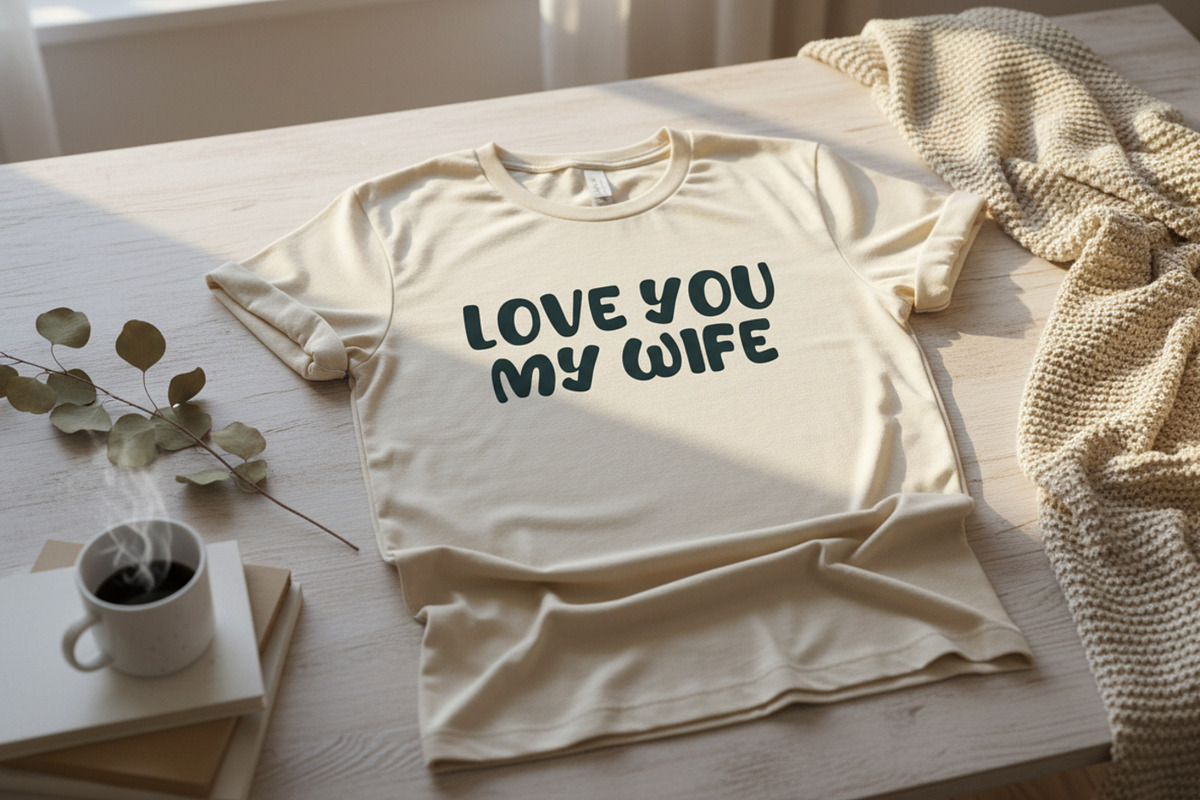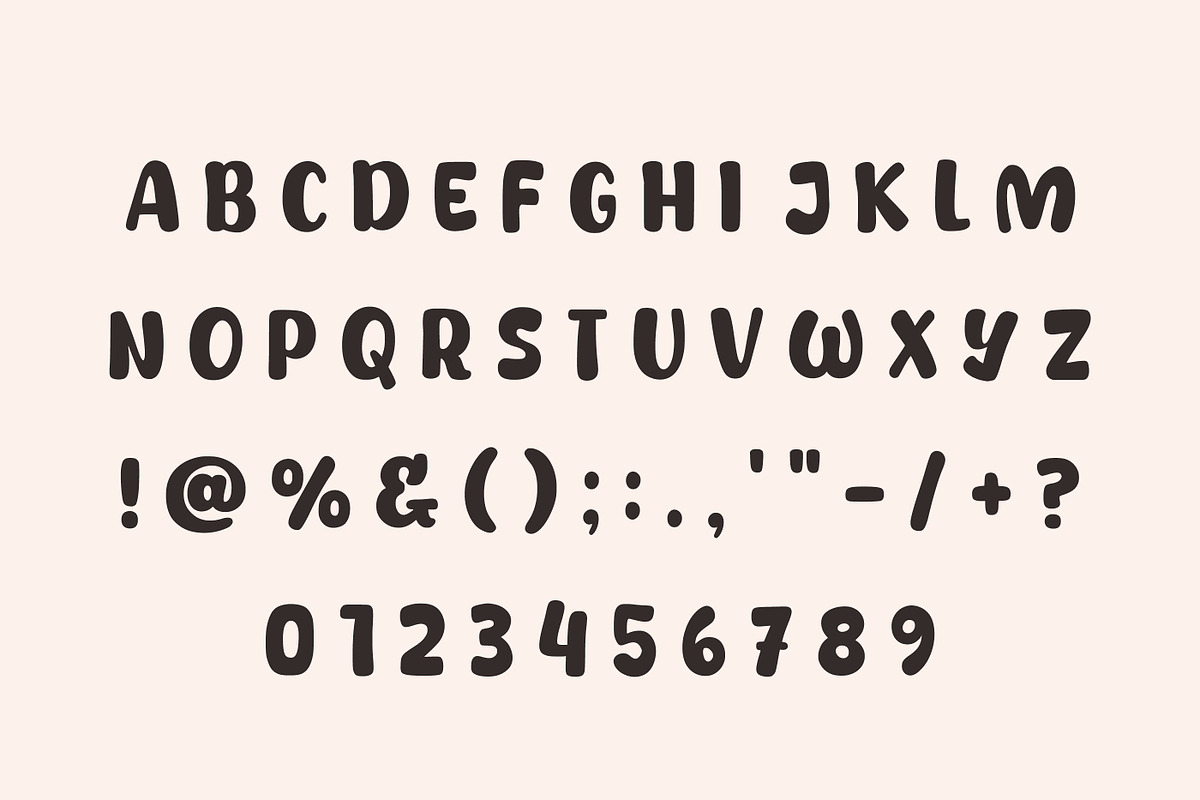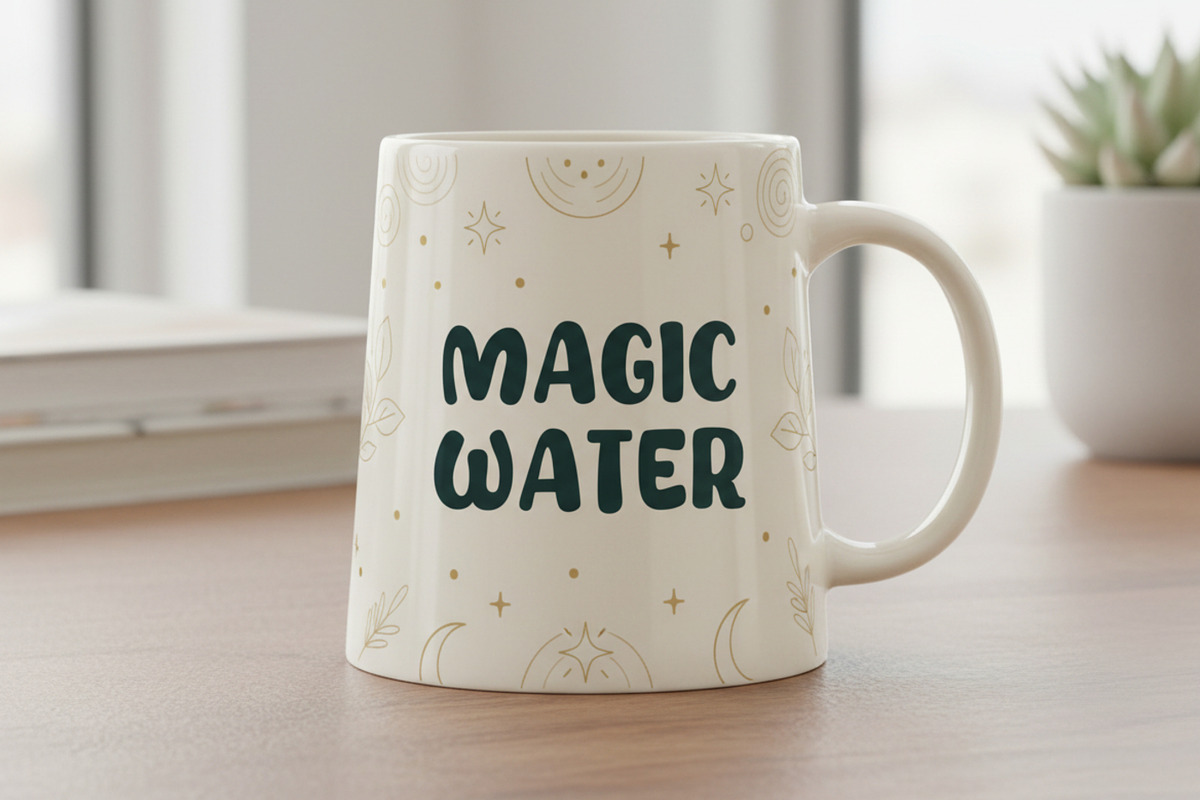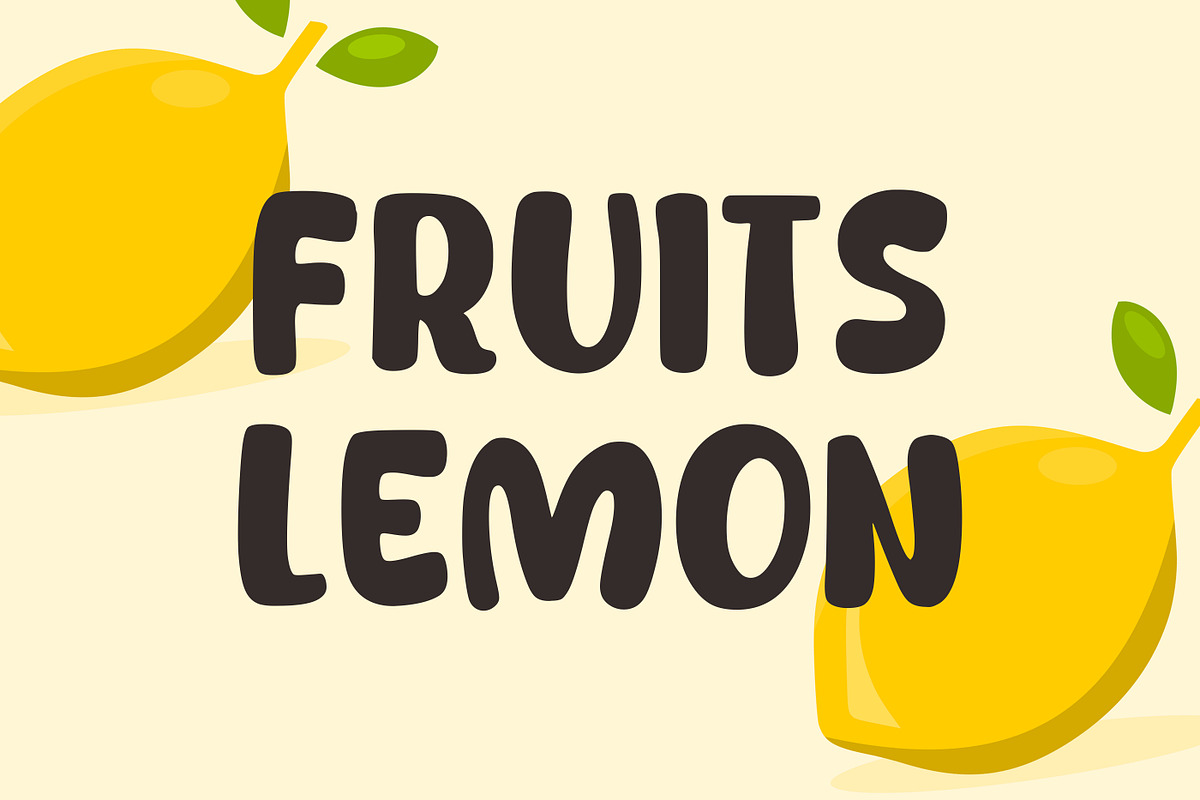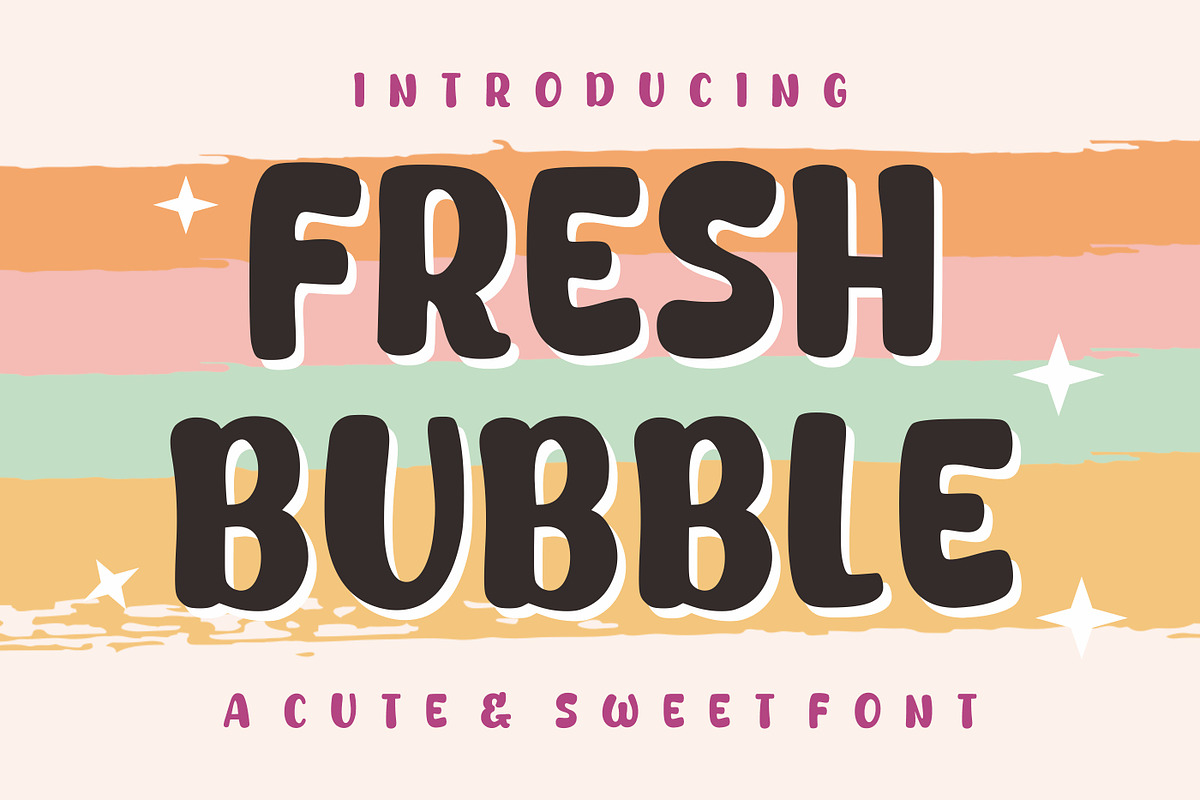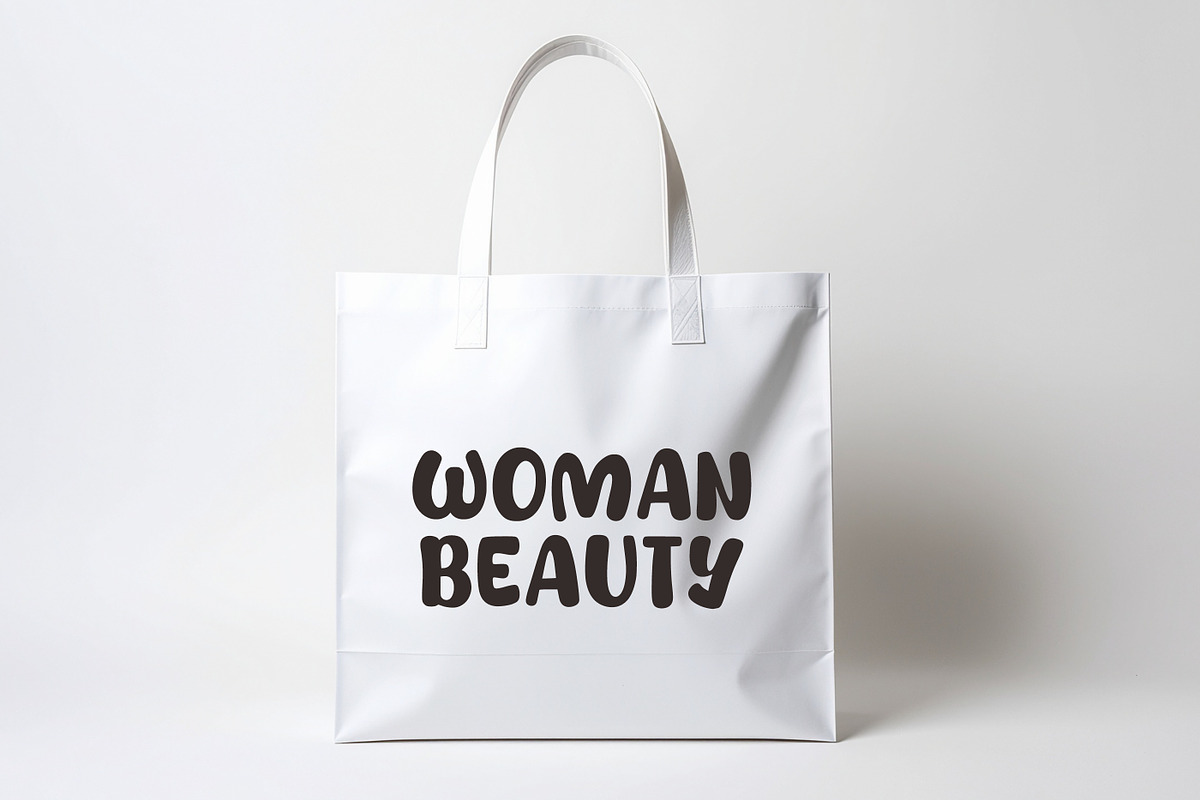
Fresh Bubble
Fresh Bubble is a playful and adorable display font designed to bring joy and personality to your creative projects. With its bold, rounded bubble shapes and smooth curves, this font creates a friendly and eye-catching look.
This playful Fresh Bubble font features soft, rounded, and plump letterforms that evoke the joyful simplicity of childhood and summertime. Its friendly and approachable “bubbly” appearance makes the Fresh Bubble typeface an ideal candidate for snack packaging, children’s toys, and colorful social media graphics.
The heavyweight of the Fresh Bubble font allows it to stand out against busy, multi-colored backgrounds with ease. Pair this Fresh Bubble typeface with bright gradients and sparkling accents to enhance its “fresh” feel. Whether you are designing for a candy brand or a youth-focused digital app, the Fresh Bubble font brings a sense of fun, sweetness, and lighthearted energy to every pixel.
It works beautifully for children’s products, birthday invitations, posters, branding, packaging, social media graphics, t-shirts, stickers, and more. Whether you’re creating something fun, cheerful, or whimsical, Fresh Bubble adds a sweet and lively touch.
This font is easy to read, highly versatile, and perfect for both digital and print designs.